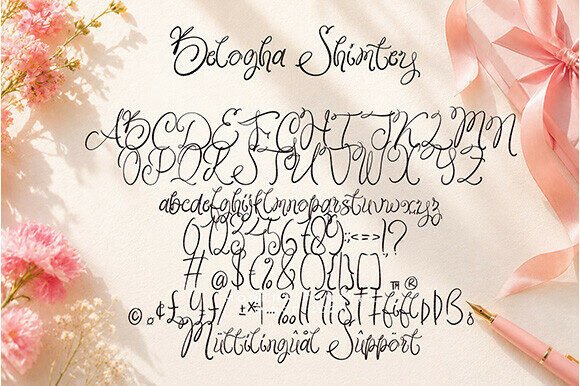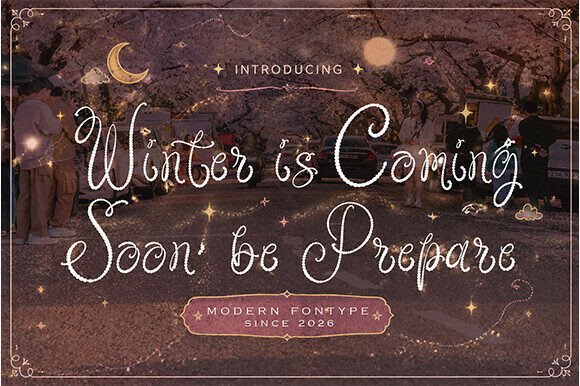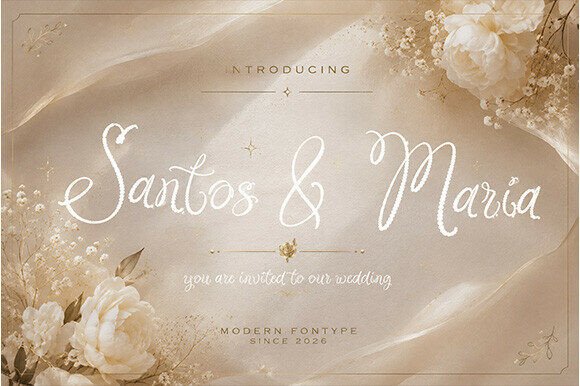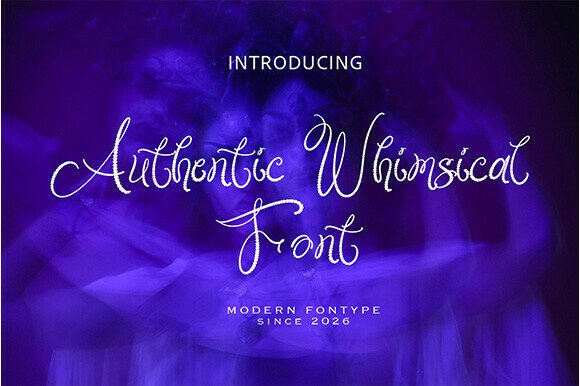
The Elusive Font: A Designer’s Love Affair with Beluga Shimtey
I still remember the countless hours I spent scrolling through font libraries, searching for the perfect typeface for a client’s wedding invitation project. The brief was simple: elegant, sophisticated, and romantic. I tried font after font, but none seemed to capture the essence of the occasion. That was until I stumbled upon Beluga Shimtey, a beautiful modern script font that has since become a staple in my design toolkit.
Beluga Shimtey is a stunning script font that embodies elegance, sweetness, and artistic charm. Here are a few things I adore about this font:
- ✨ Delicate flowing curves that exude luxury and sophistication
- ✅ Stylish handwritten details that add a touch of whimsy
- 💕 Decorative swashes that create a romantic and feminine feel
- 📸 Smooth calligraphic strokes that make it perfect for beauty products and fashion labels
While Beluga Shimtey is an exceptional font, it’s not without its quirks. Here are a few things to keep in mind:
- 🤔 The font can be a bit overwhelming for body text; it’s best used for headings and titles
- ⚠️ Some users may find the decorative swashes a bit too ornate for certain projects
The Story Behind Beluga Shimtey
Beluga Shimtey was designed by a talented type designer who wanted to create a font that captured the essence of elegance and sophistication. Inspired by the flowing curves of calligraphy and the whimsy of handwritten scripts, Beluga Shimtey was born. While the designer’s story may be shrouded in mystery, one thing is clear: Beluga Shimtey is a true gem in the world of typography.
| Font Name | Beluga Shimtey Font |
| Author | Jumhot Studio |
| What is Beluga Shimtey best used for? | Beluga Shimtey is perfect for feminine branding, wedding invitations, beauty products, fashion labels, social media content, packaging, and elegant logo designs. |